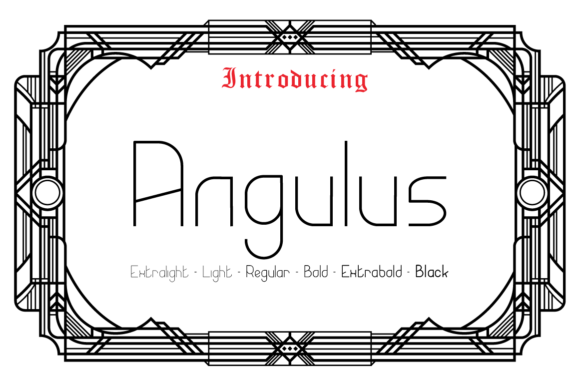
The Designer’s Delight: Angulus Font
Have you ever been in the middle of a design project, pouring your heart and soul into it, and suddenly realized that something is just not quite right? The colors are great, the composition is on point, but the font… oh, the font is just not doing it for you. I recently found myself in this exact situation, working on a vintage-inspired branding project for a client who wanted a font that was both stylish and nostalgic. That’s when I stumbled upon the Angulus font, and let me tell you, it’s been a game-changer.
A Beautiful and Extensive Sans Serif Font
Angulus is a stunning sans serif font that comes in multiple weights, giving you a range of options to suit your design needs. What I love about Angulus is its unique combination of softness and hard angles, which gives it a distinctive and stylish appeal. This font is perfect for designers, crafters, and creative hobbyists who want to add a touch of vintage charm to their work.
So, what do I love about Angulus? Here are a few things that make it stand out:
• ✨ Extensive weight range: With multiple weights to choose from, you can use Angulus for a variety of design projects, from headings to body text.
• ✅ Unique style: The combination of softness and hard angles gives Angulus a distinctive look that’s both stylish and nostalgic.
• 💡 OpenType features: Angulus comes with a range of OpenType features, including glyphs and stylistic alternates, which give you even more creative options.
• 🤔 Limited language support: While Angulus supports a range of languages, it’s not suitable for languages that require non-ASCII characters.
• ⚠️ Some kerning issues: As with any font, there may be some kerning issues, particularly with certain character combinations.
The Story Behind Angulus
Angulus was designed with the goal of creating a font that was both stylish and nostalgic. The designer wanted to create a font that would evoke the feeling of vintage design, while still being modern and versatile. With its unique combination of softness and hard angles, Angulus is the perfect result of this vision.
What is Angulus font? Angulus is a beautiful and extensive sans serif font in multiple weights, filled with airiness and style.
What languages does Angulus support? Angulus supports a range of languages, including English, Spanish, French, and more.
Is Angulus suitable for body text? While Angulus is primarily designed for headings, it can also be used for body text in certain contexts.